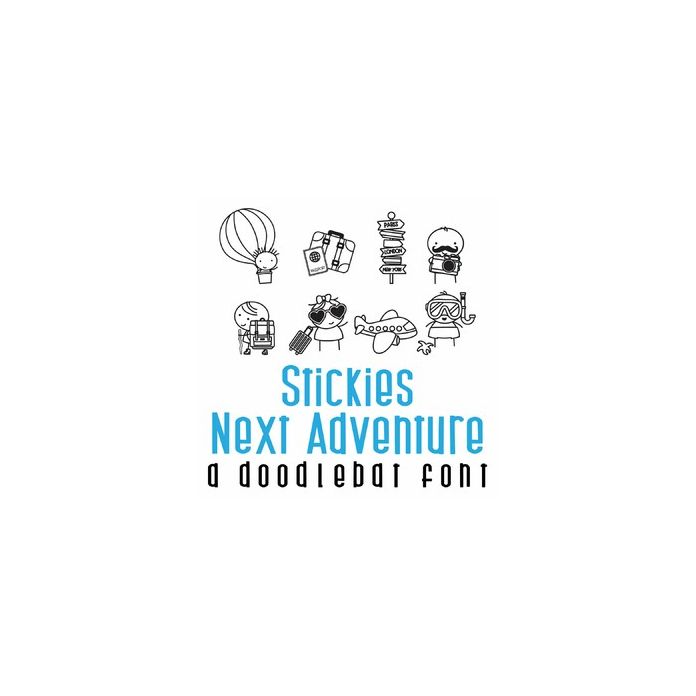
Stickies are back and ready for their next adventure. Get 26 traveling stickies in this doodlebat. Perfect for cards, crafts, gifts, planner stickers, parties, scrap book pages and more!